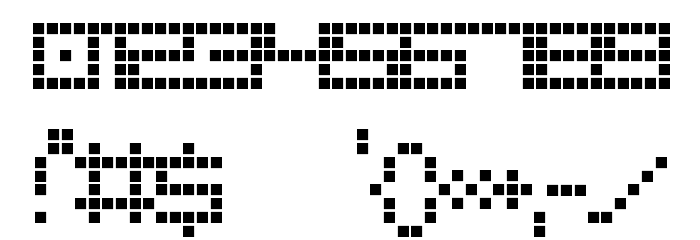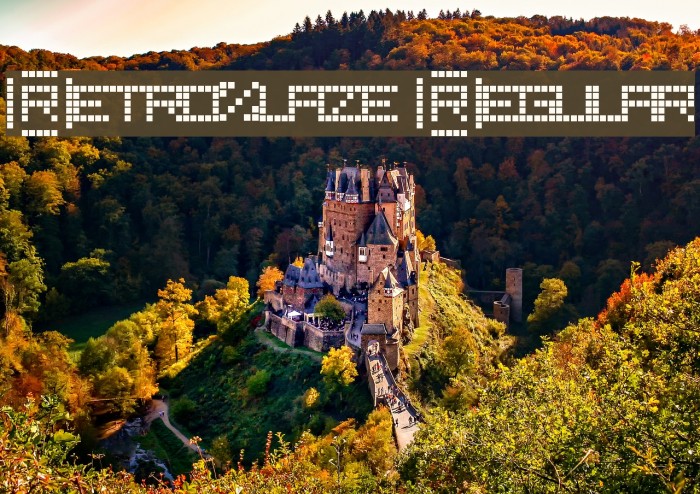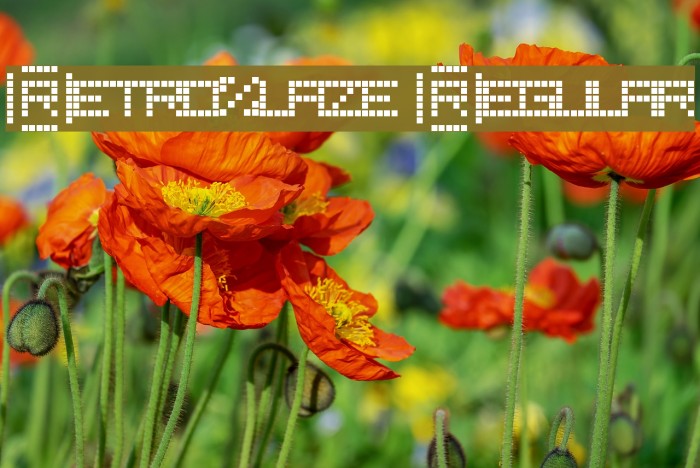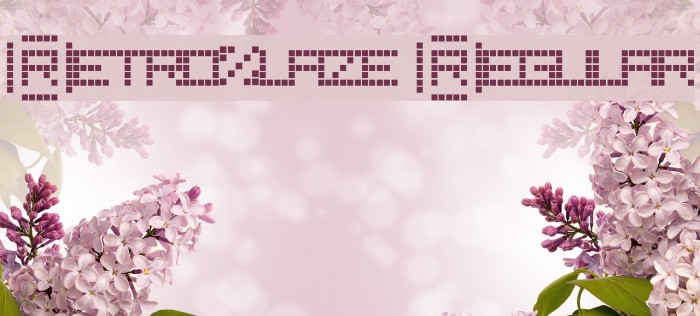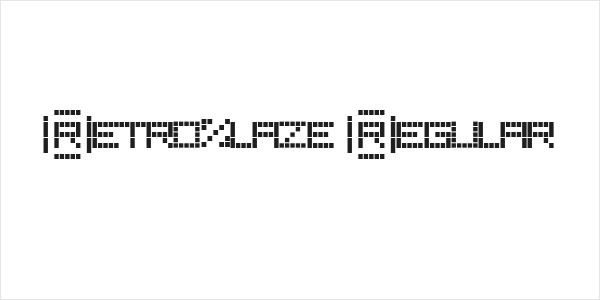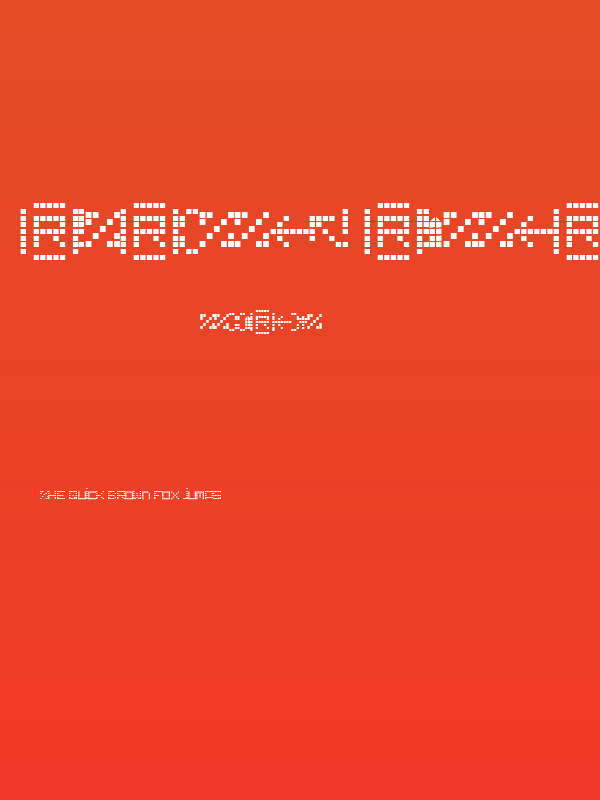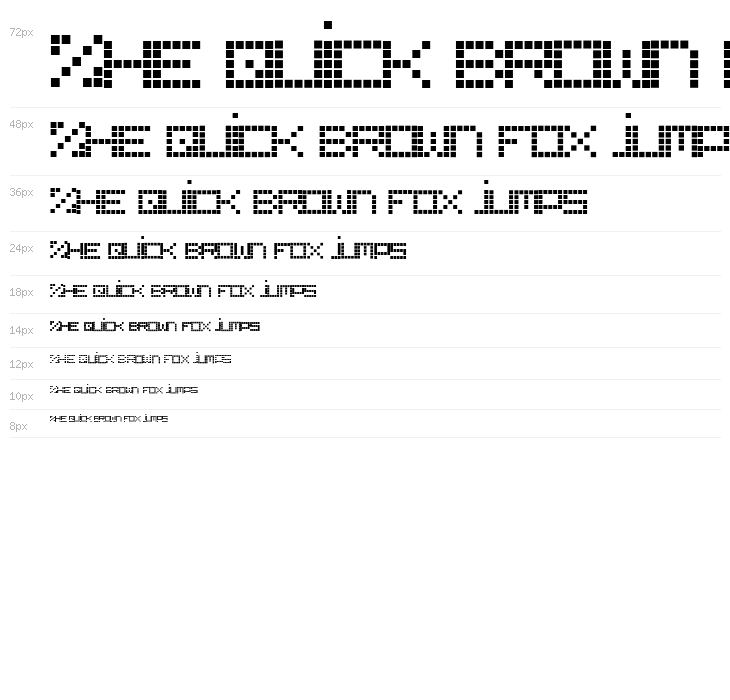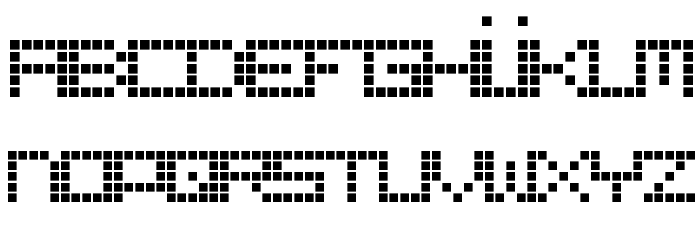
RetroBlaze Regular Font
RetroBlaze Regular Description
This font features a distinct pixelated design, reminiscent of early digital displays and retro video games. Each character is constructed from a grid of square dots, creating a blocky and geometric appearance. The uppercase and lowercase letters maintain a consistent height, while the numerals and special characters follow the same pixelated style. This font evokes a sense of nostalgia and is ideal for projects that aim to capture a vintage digital aesthetic. Its unique design makes it stand out, yet it remains legible and clear.
| Use Case | Headlines, Logos, Digital Art |
| Proposed Projects | Ideal for retro-themed designs, video game graphics, digital art projects, and any creative work seeking a vintage digital look. |